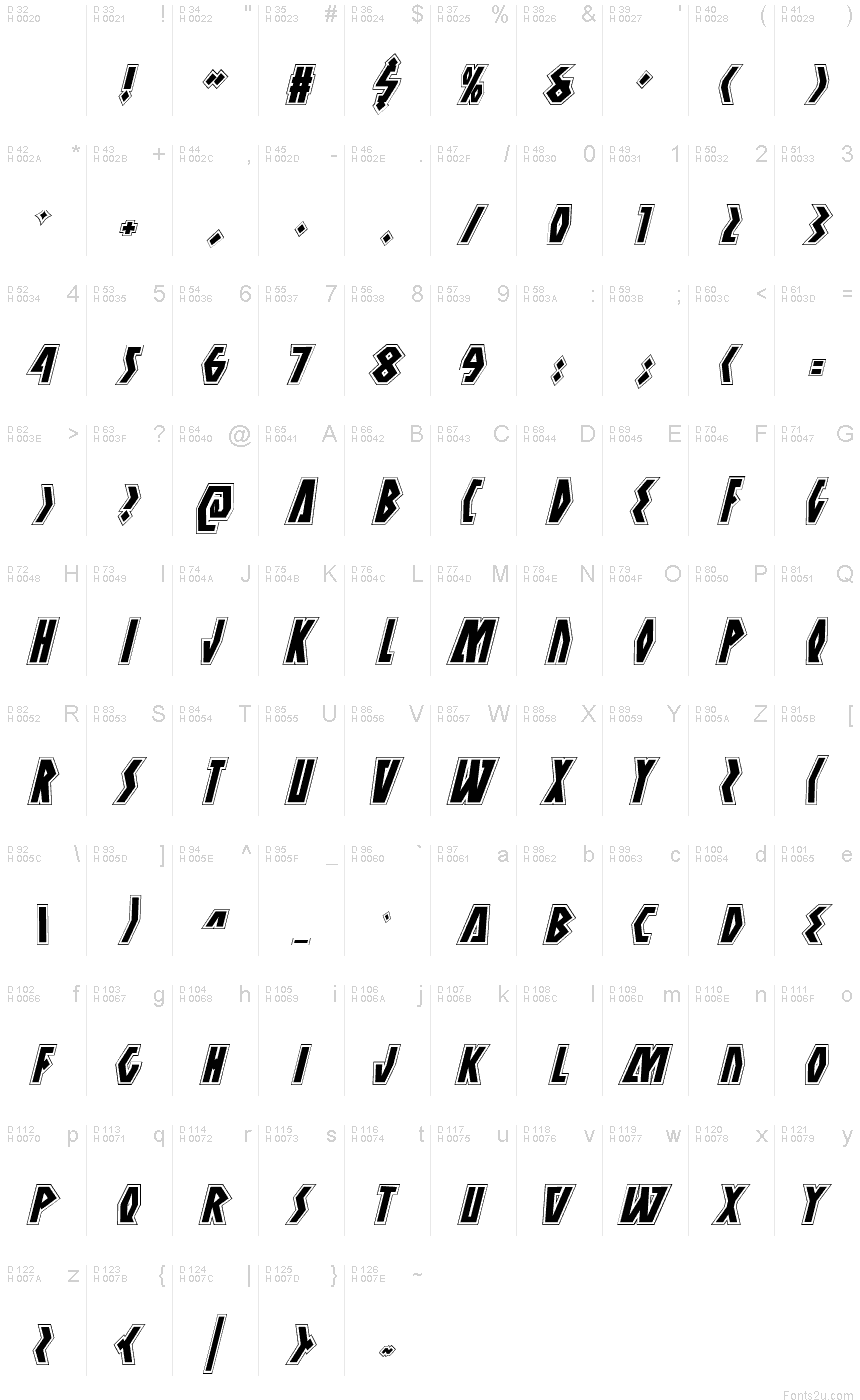
Antikythera Academy Italic
A title font named for the Antikythera mechanism found off the coast of a Greek isle several decades ago. The device was a precise calculation insturment with engineering centuries ahead of its time. It was, historians say, the first real computer, and another device with similar functionality and engineering would not be seen again for several more centuries. Antikythera comes with a complete Latin character set.